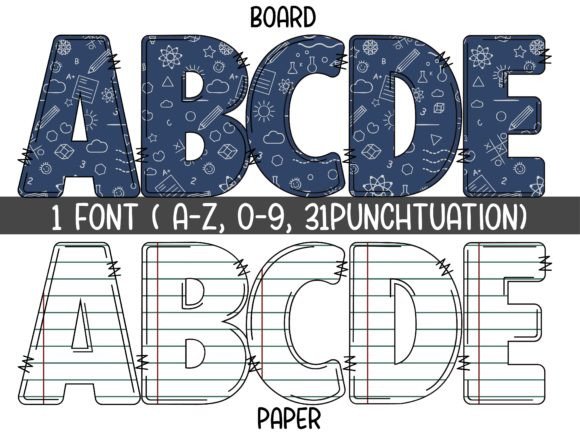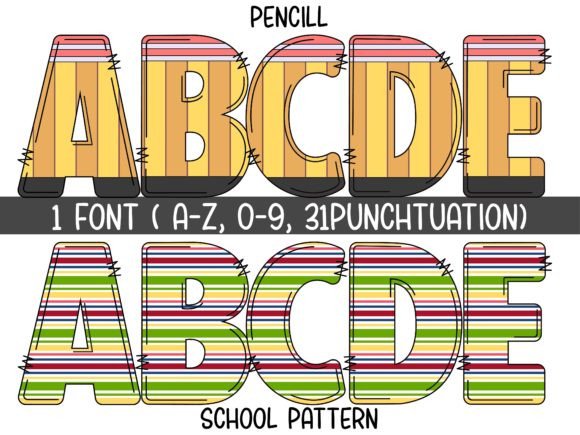
Introduction to School Pattern Font
School Pattern is a cute and fun color font.
It embodies playfulness and authenticity and is the perfect choice for any childrenโs activity or school project Add this chunky lettered font to your designs and notice how it makes them come alive.